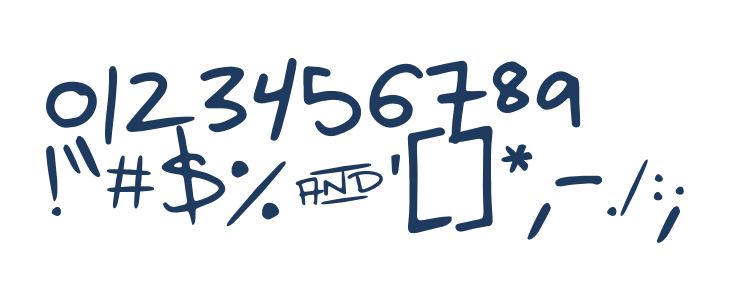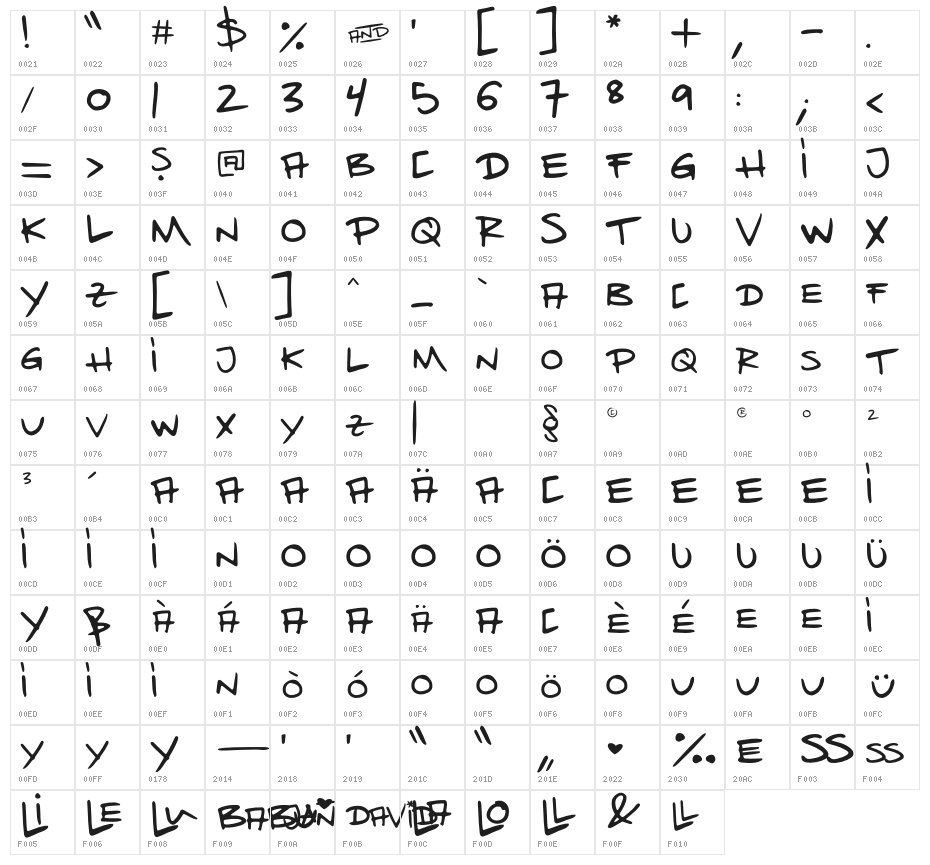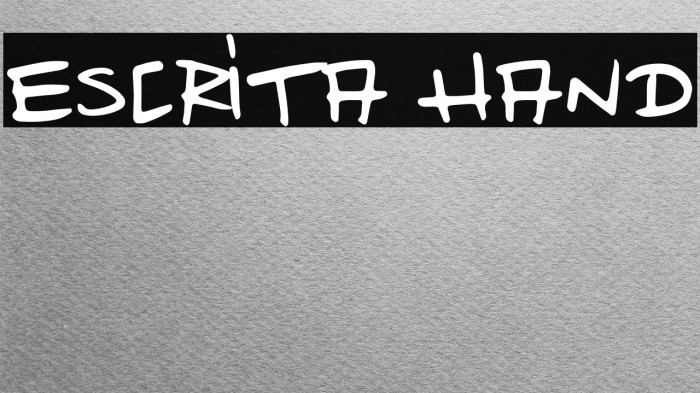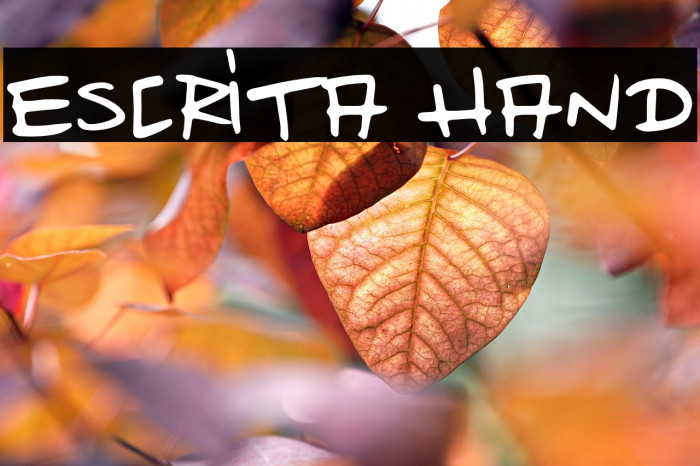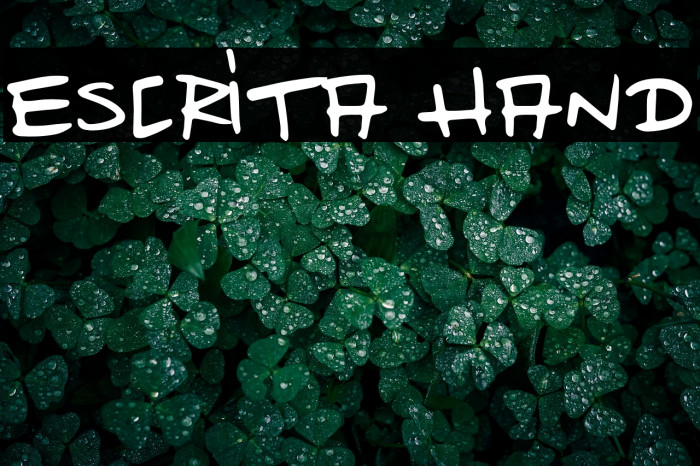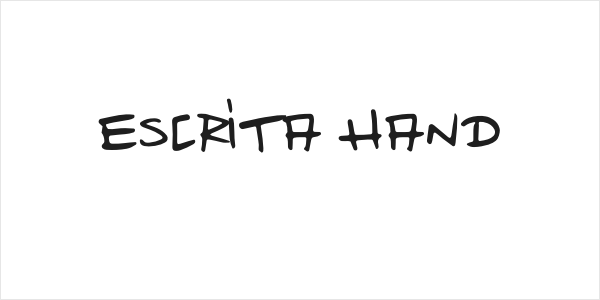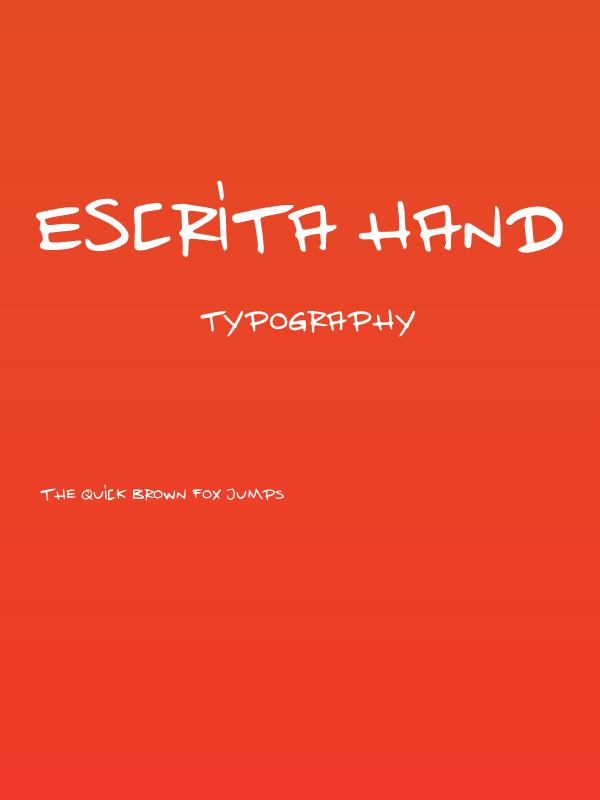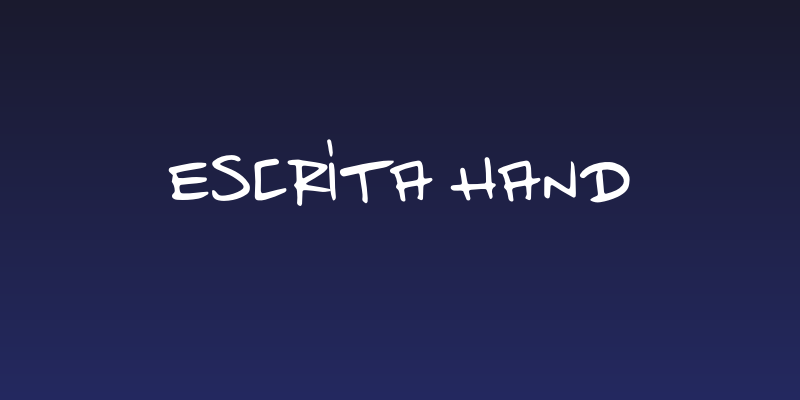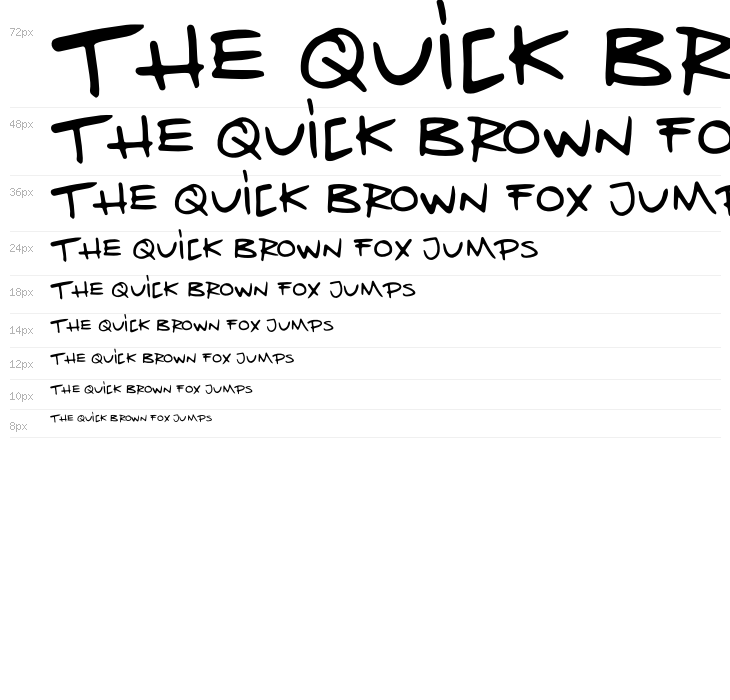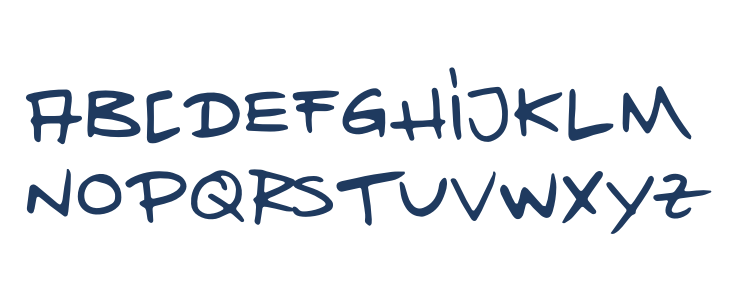
Escrita Hand Font
Escrita Hand Description
This font exudes a playful and energetic vibe with its handwritten style, characterized by bold, sweeping strokes and a slightly irregular baseline that adds to its charm. The uppercase and lowercase letters maintain a consistent flow, while the numerals and special characters complement the overall aesthetic. The font's dynamic appearance makes it suitable for projects that require a personal touch or a sense of spontaneity. Its boldness ensures readability, while the unique letterforms provide a distinctive look.
| Proposed Projects | Ideal for greeting cards, children's books, playful branding, and informal invitations. |